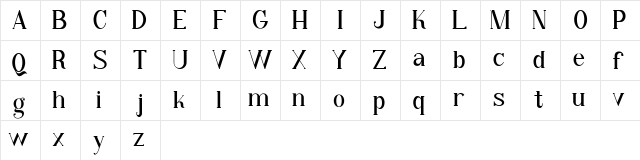
Qiba Serif FREE Regular
Design Context for Qiba Serif FREE Typeface
Qiba Serif FREE carries the refined structure of traditional serif typography, with bracketed terminals and considered proportions that communicate credibility and craft.
Pro Tip: Set Qiba Serif FREE with slightly loose tracking in headlines to let each letterform's detail read clearly at display sizes.